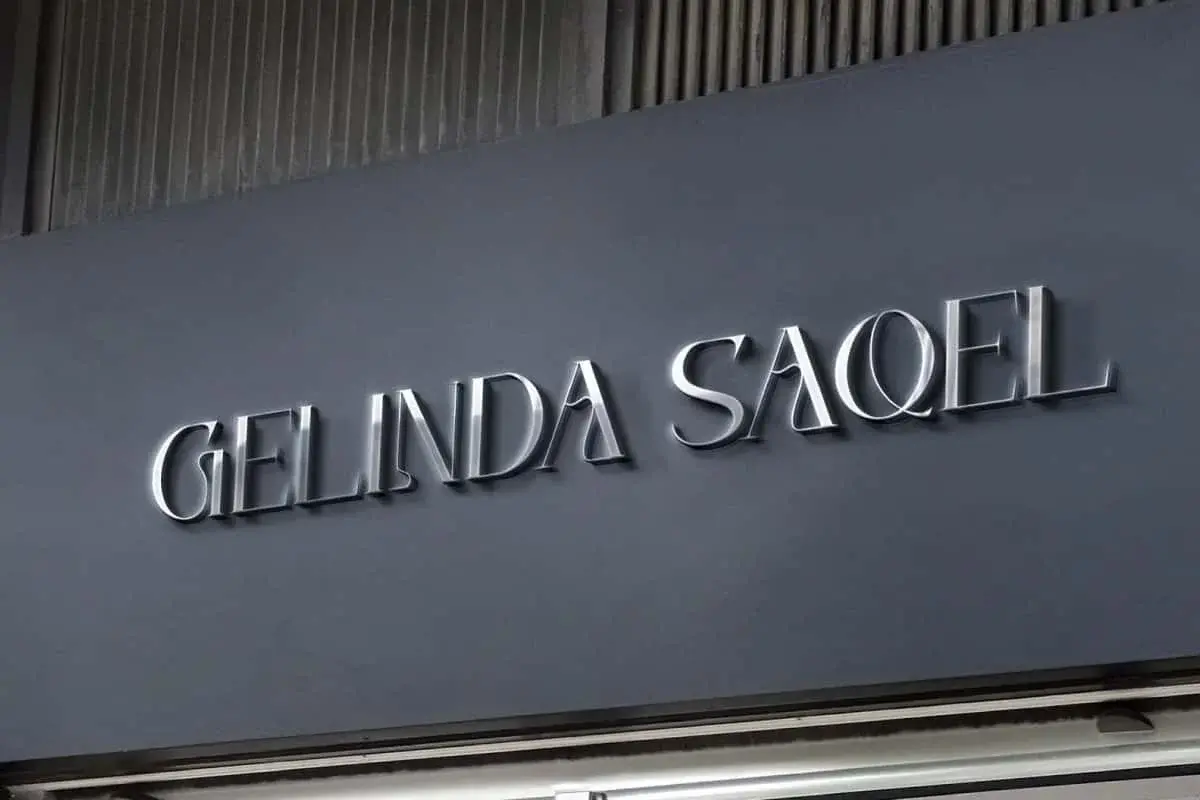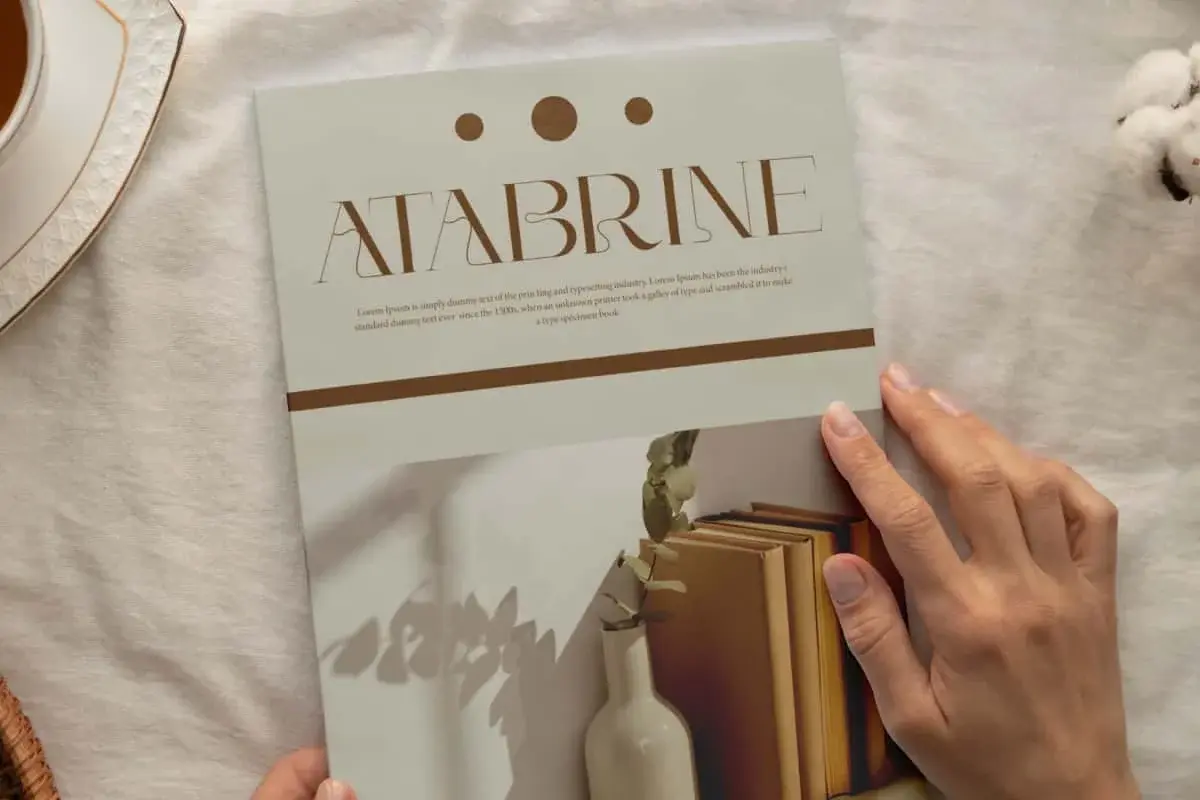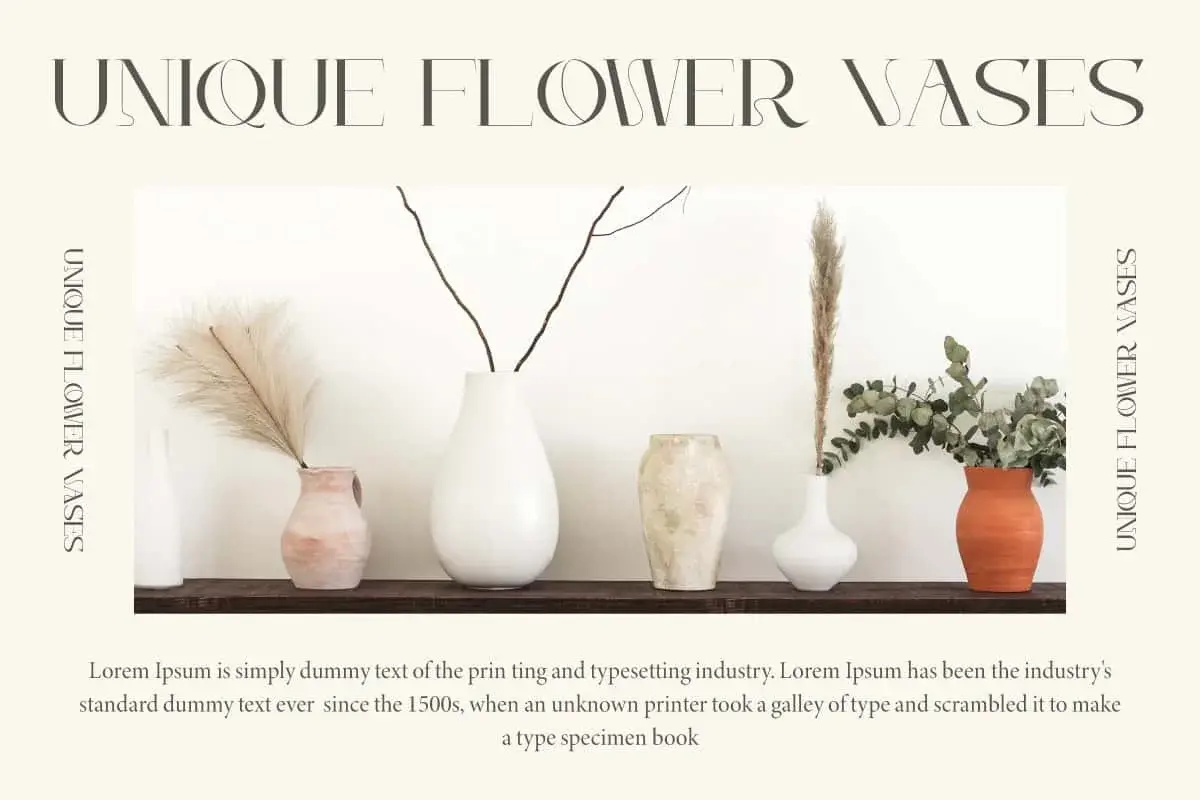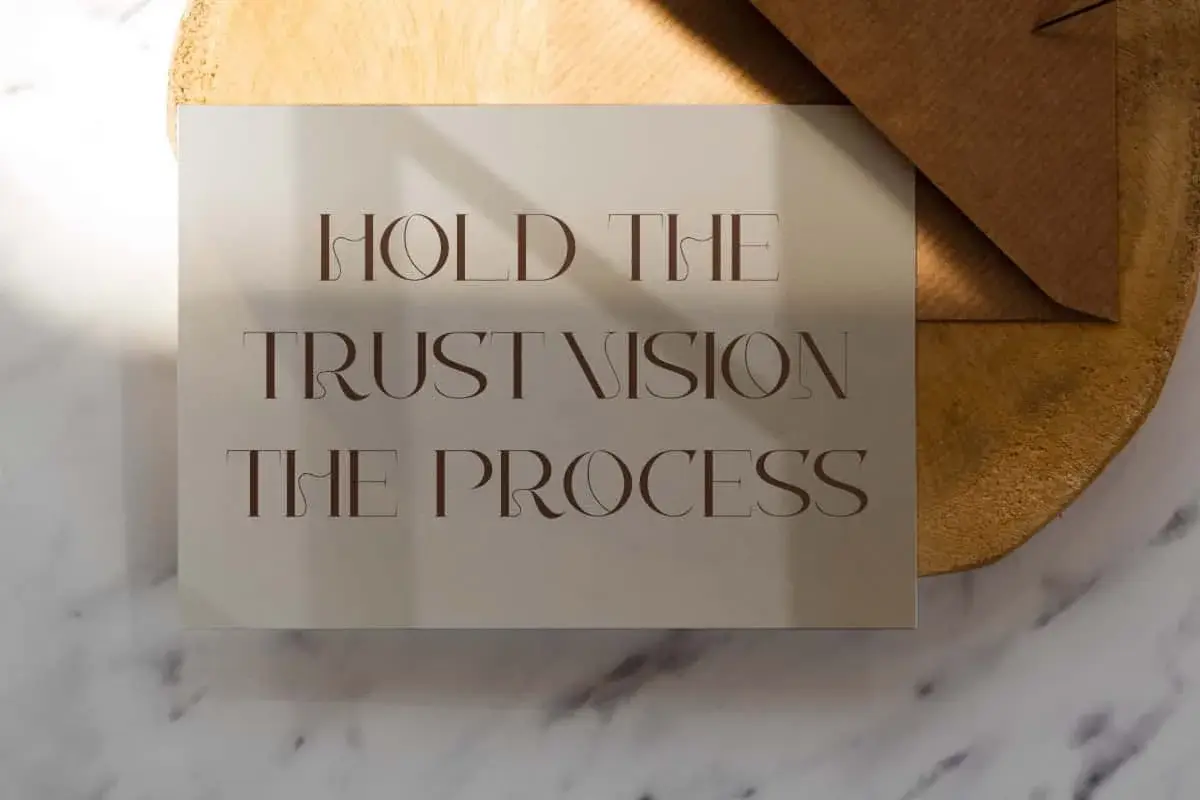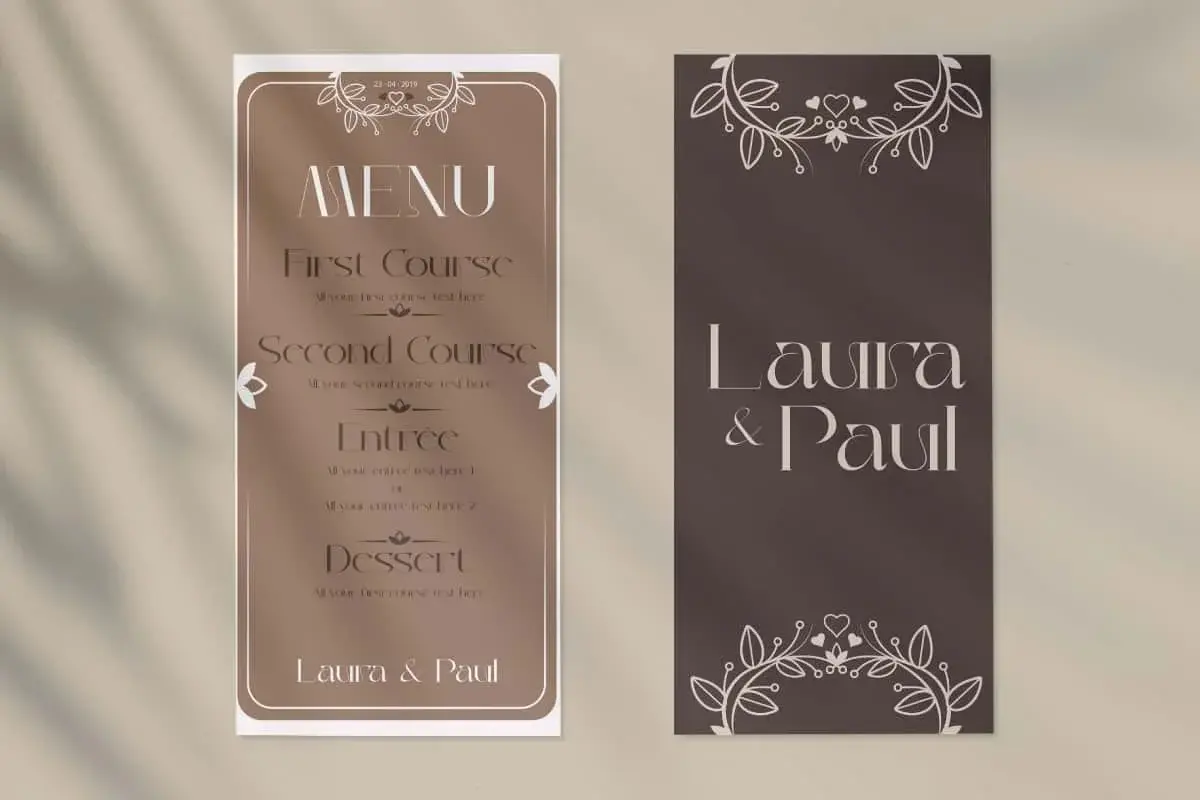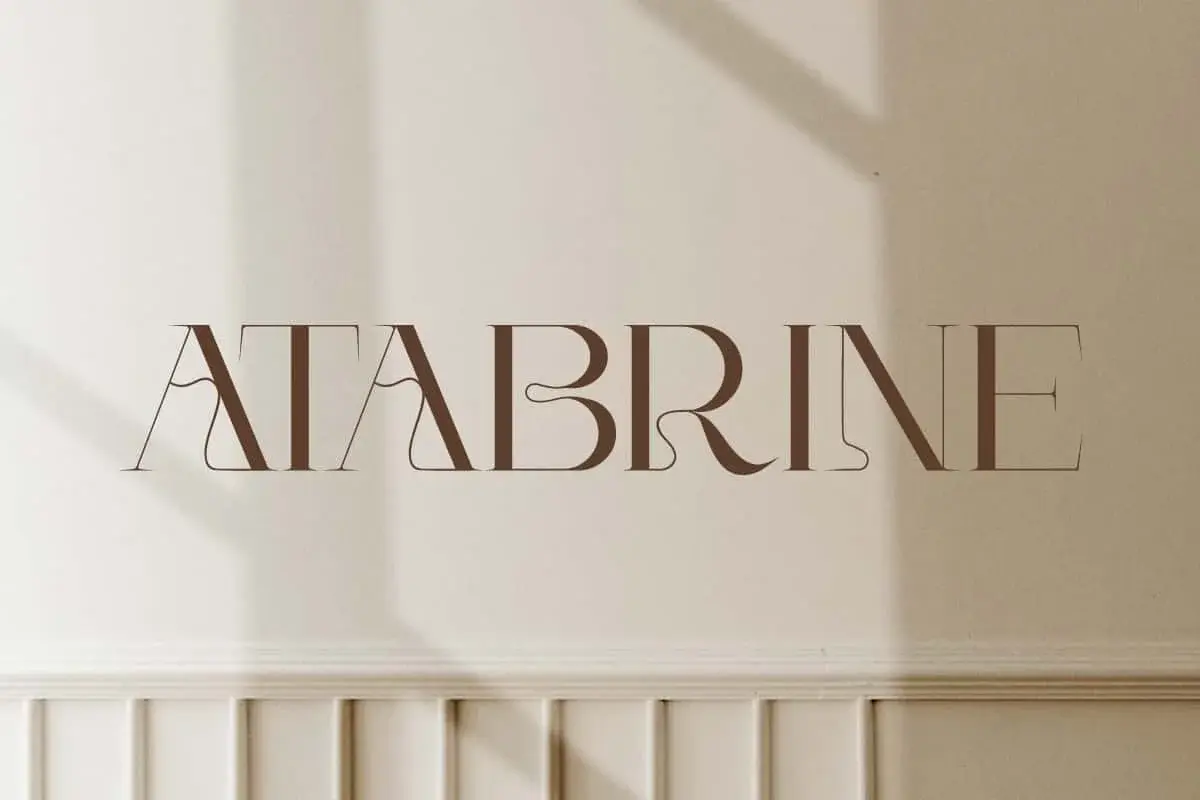
Atabrine Font is a beautiful serif display font with flowing curves and brings timeless charm with dynamic typographic potential. Adaptable to your vision!
Atabrine Font is an impressive serif display font with classic elegance of flowing curves wrapped up in modernity. This font is designed to be easy to read in both print and digital formats. It will offer endless possibilities for customization and creativity, suitable for banner, brochure, cover, greeting card, header, heading, label, poster, signage, tags, title, website, and more.
Atabrine Font contains a complete set of basic Uppercase and Lowercase characters, Numbers, Symbols and Punctuation. The shape is indeed different from usual, presenting the aesthetic appeal of this font which is not only beautiful, but also has wide versatility. It is an ideal choice for various creative projects, such as architect, fashion, florist, home furniture, interior design, restaurant, skincare, spa salon, wedding, and much more.